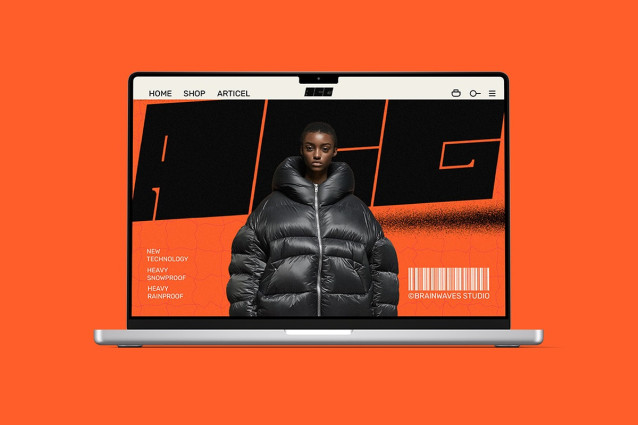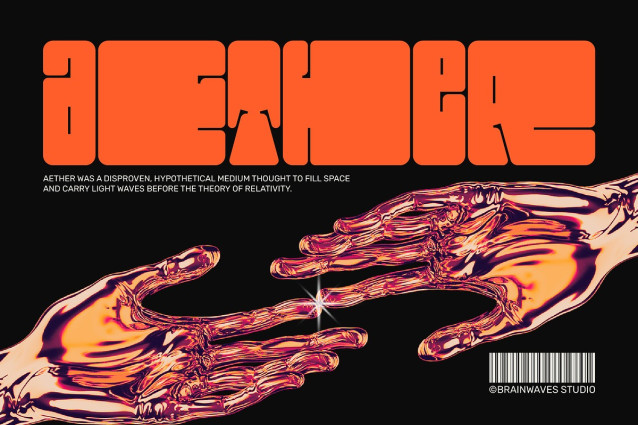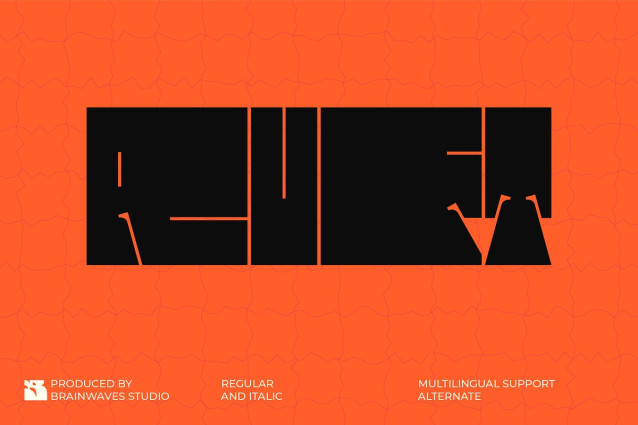
Ruft Display Font
Ruft Display Font a truly unique and cutting-edge typeface that breaks all design norms. This font isn’t just letters; it’s a statement! With its deconstructed and abstract forms, Ruft brings a powerful, futuristic, and edgy vibe to any project.
Imagine bold headlines that grab attention instantly, or logos that speak volumes about innovation. Ruft’s strong, solid weight makes it perfect for impactful designs, while its glitch-inspired aesthetic adds a high-tech, digital feel. It’s ideal for brands that want to be seen as daring, modern, and ahead of the curve.